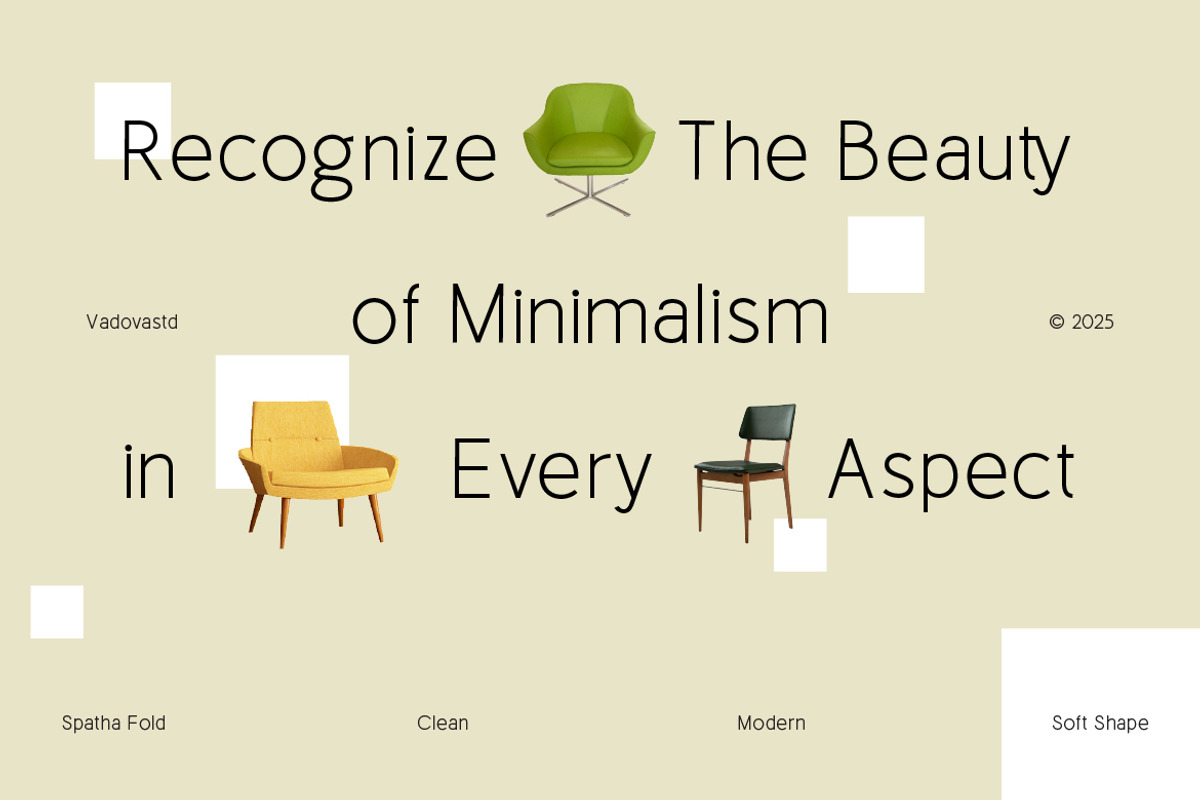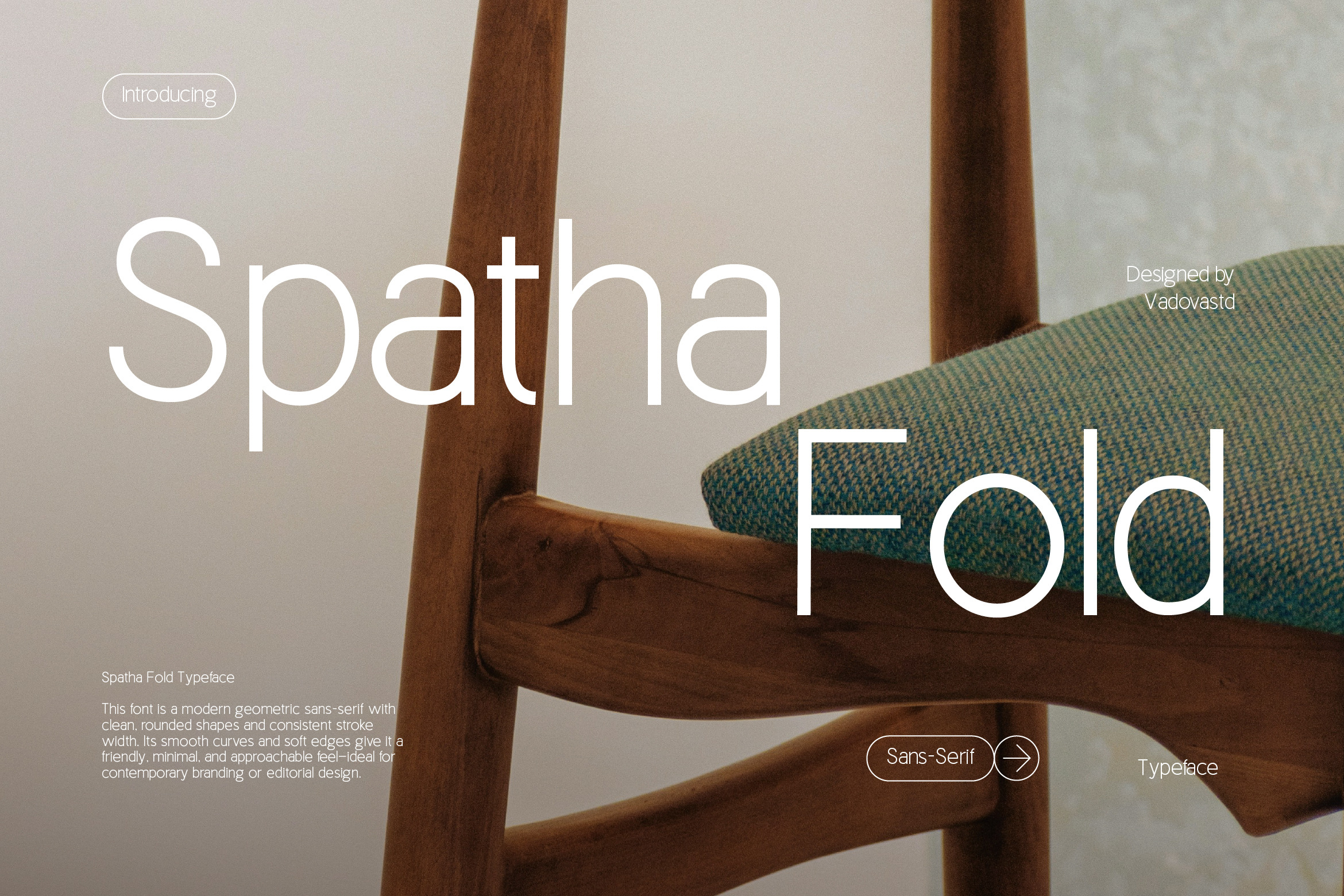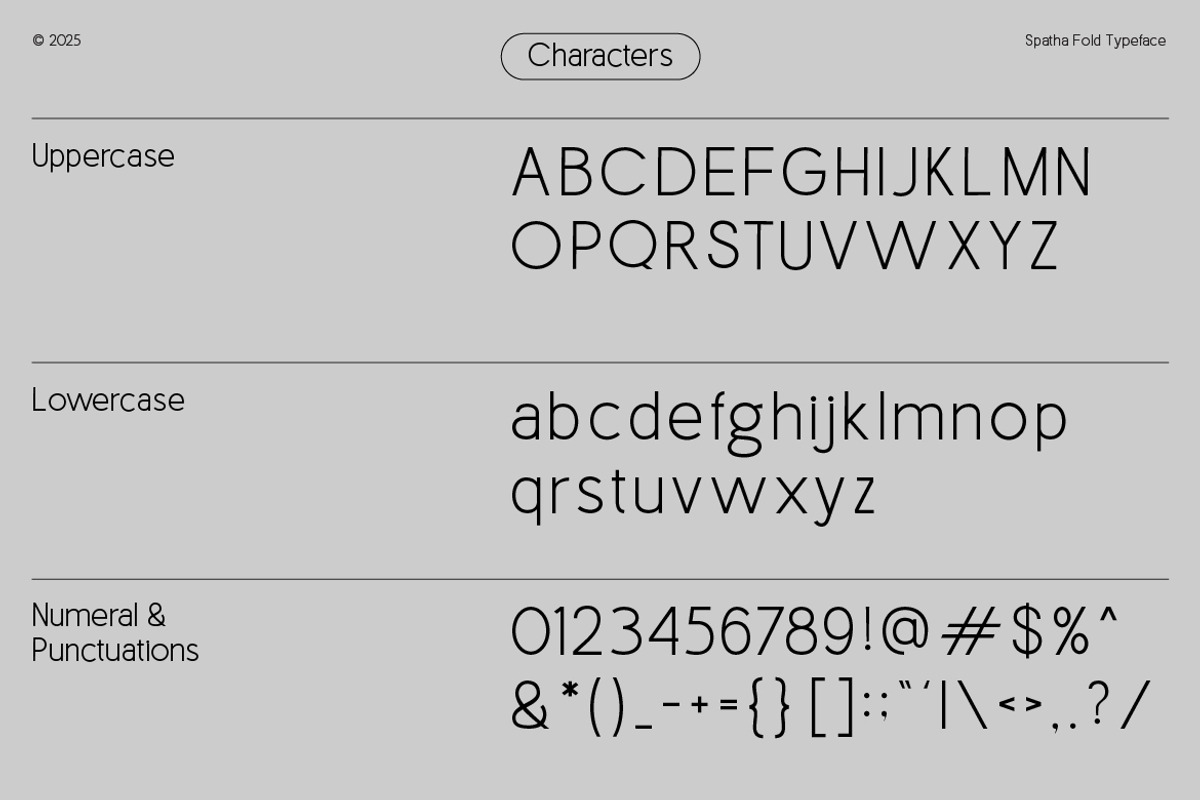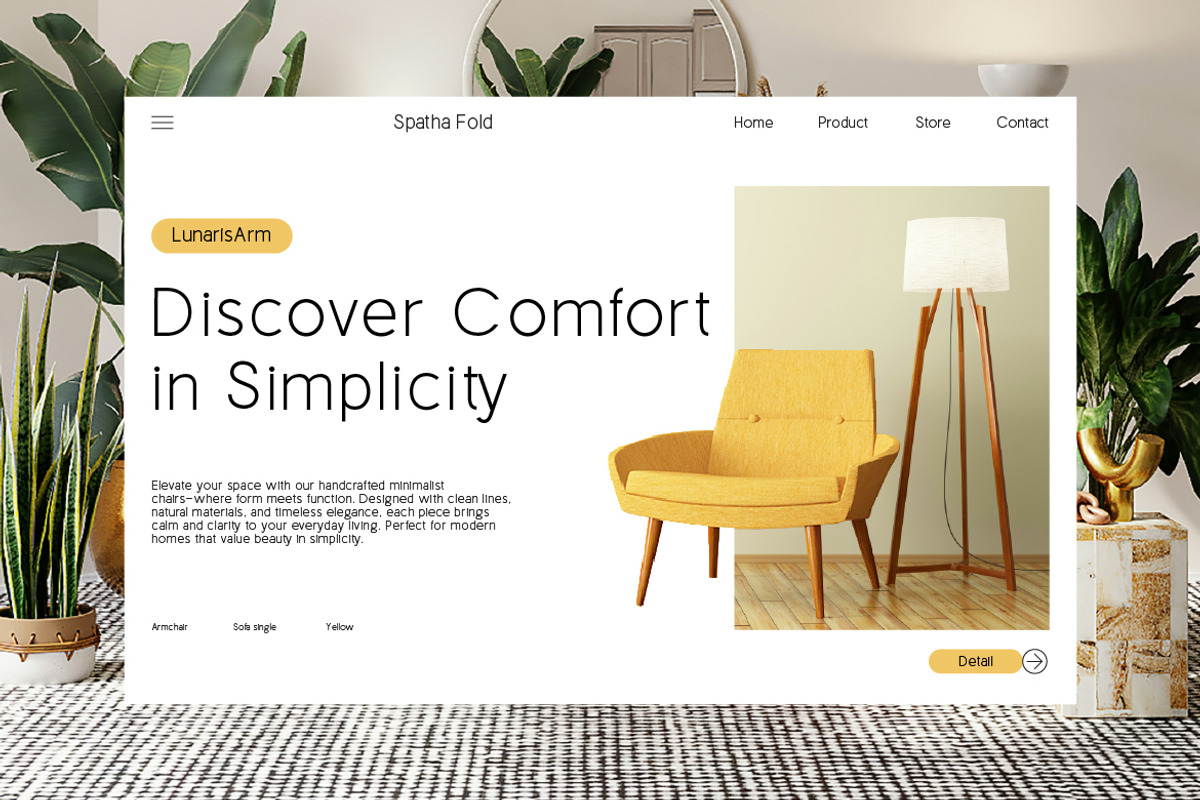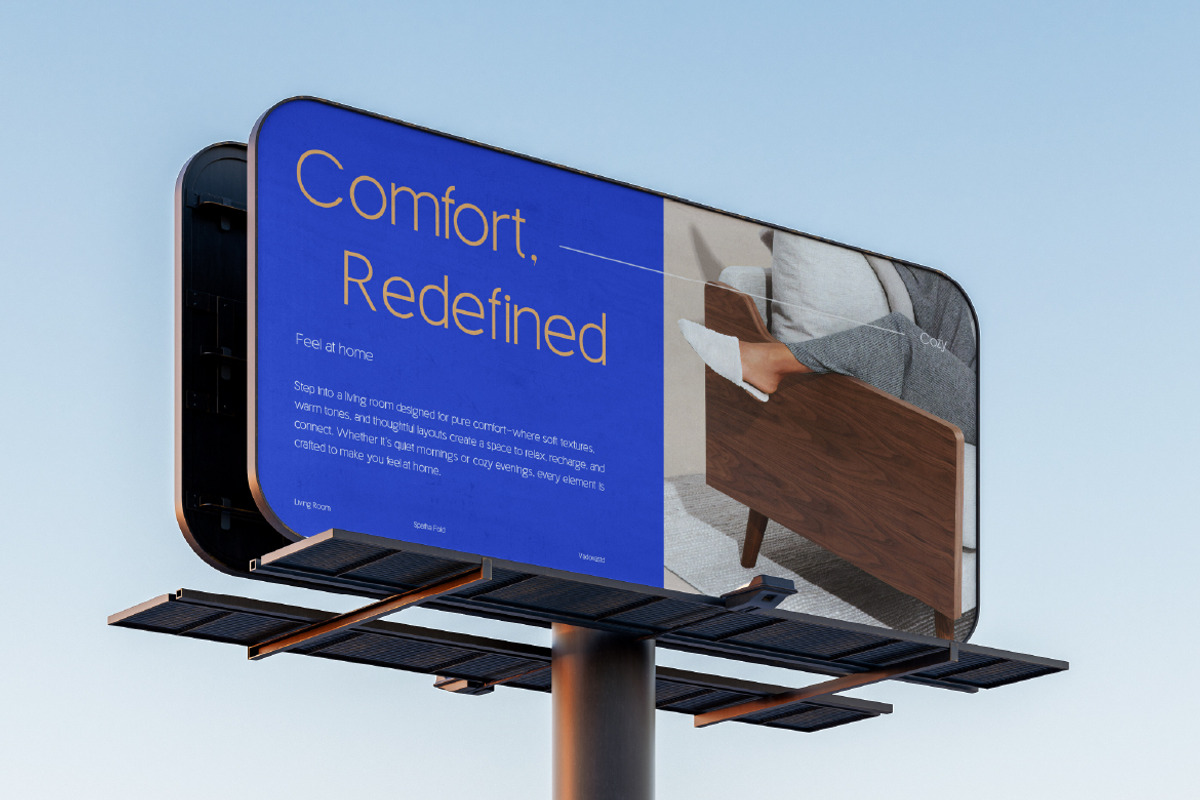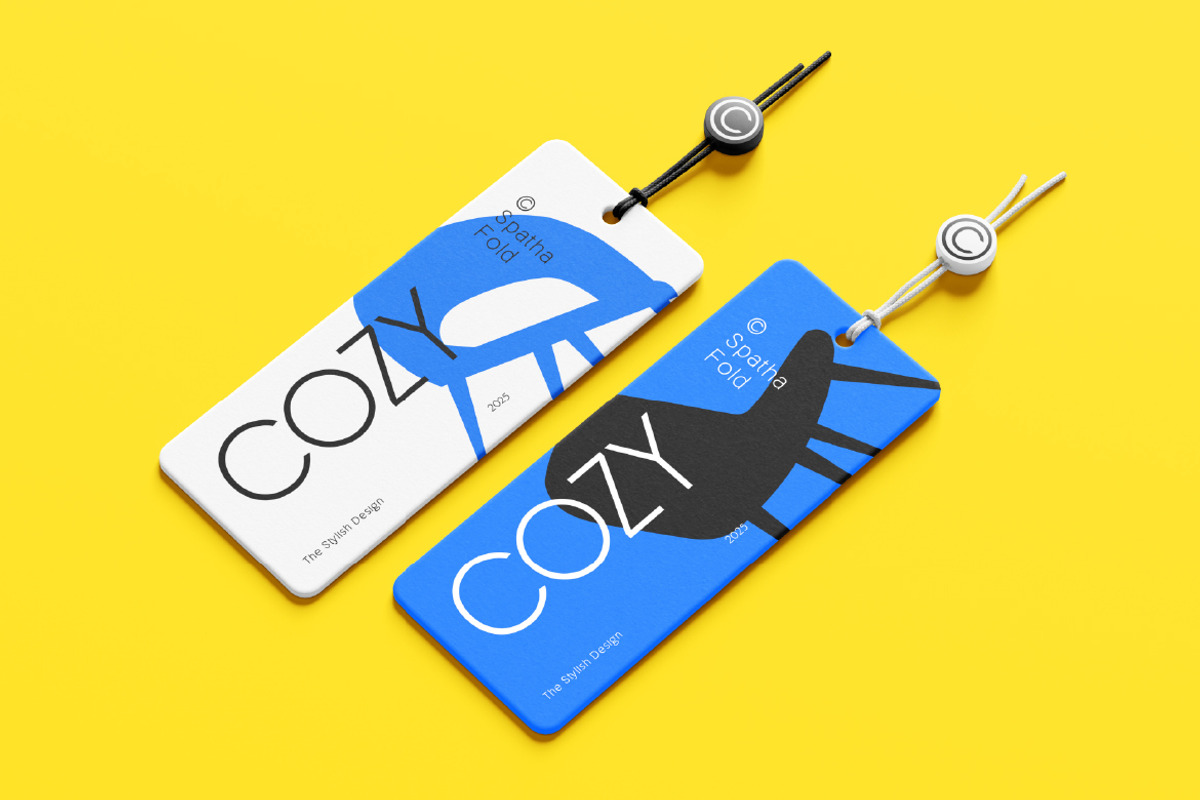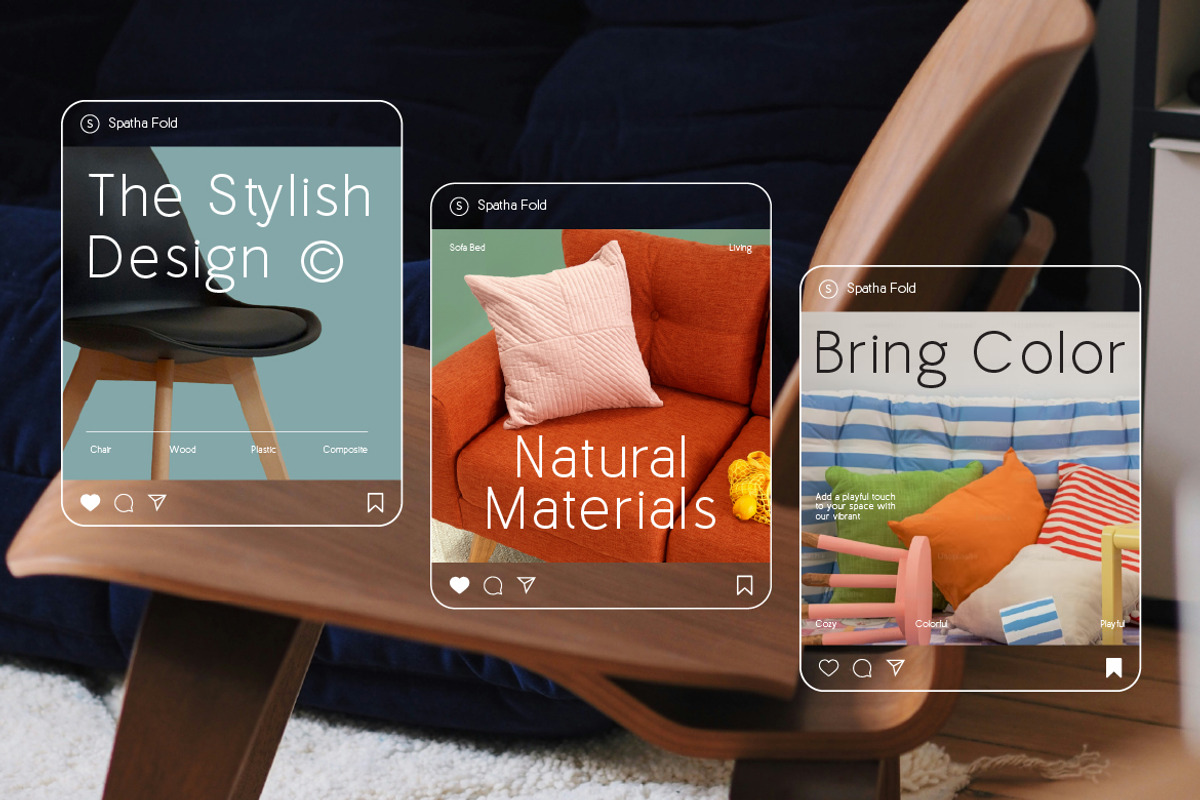
Spatha Fold Clean Sans Serif Font
Spatha Fold is a modern geometric sans-serif typeface designed with clean lines, rounded shapes, and consistent stroke widths. It features soft edges and smooth curves that lend a friendly and approachable tone, making it ideal for contemporary branding and editorial design. The font offers great legibility in both large displays and small text settings, perfect for user interfaces, modern product packaging, social media visuals, and web design projects.
Spatha Fold stands out as a versatile and contemporary typeface that caters to a wide range of creative and professional design needs. Its clean geometric structure and soft, rounded terminals make it especially relevant in projects where clarity, simplicity, and a touch of warmth are essential. Whether you’re building a forward-thinking brand identity or designing intuitive digital interfaces, Spatha Fold delivers a polished, modern tone that feels both professional and approachable.
- Clean geometric sans-serif with a modern, minimalist aesthetic
- Rounded letterforms and smooth terminals for a soft, approachable tone
- Consistent stroke width for visual balance and clarity
- Optimized spacing for excellent legibility in both large and small sizes
- Subtle curves and open counters to enhance readability and flow
- Contemporary brand identities with geometric precision
- Minimalist UI/UX for web and mobile platforms
- Modern editorial layouts and clean print designs
- Sleek packaging with a futuristic aesthetic
- Stylish digital graphics and promotional templates
Empower your visuals with Spatha Fold and define your message with sharp modernism